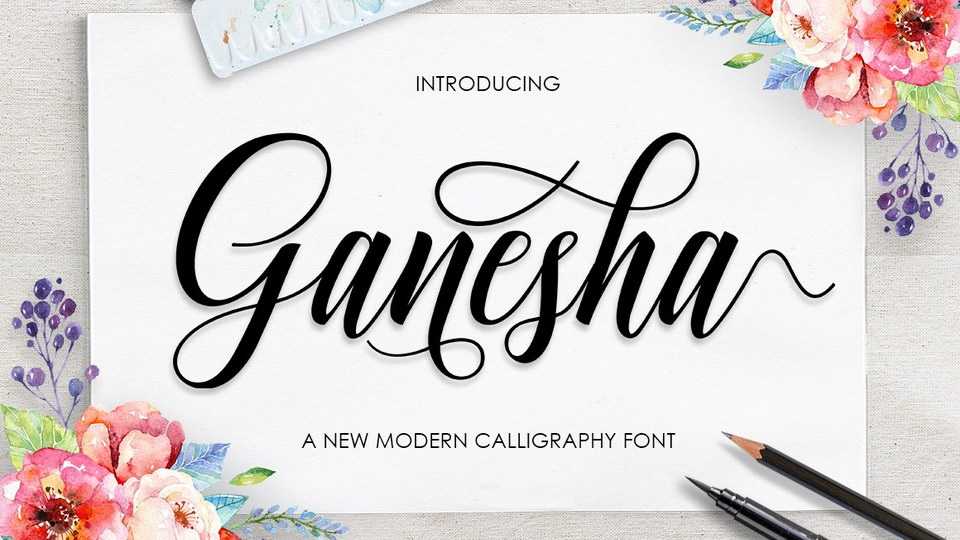
Download Ganesha Script font is a stunning modern calligraphy typeface with pretty swashes. Great for various purposes such as logo, product packaging, wedding invitations, branding, headlines, signage, labels, signature, book covers, posters, quotes and more.